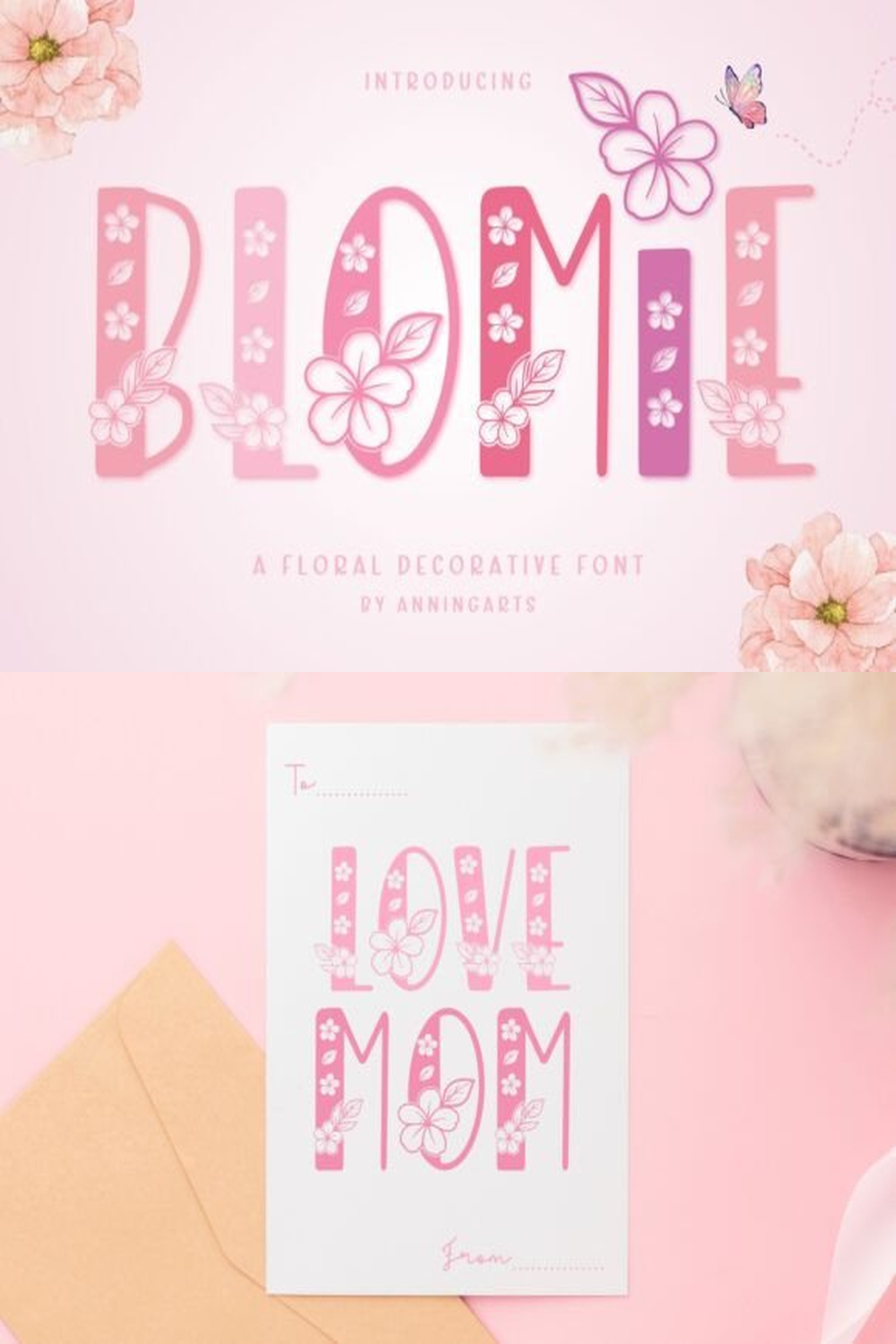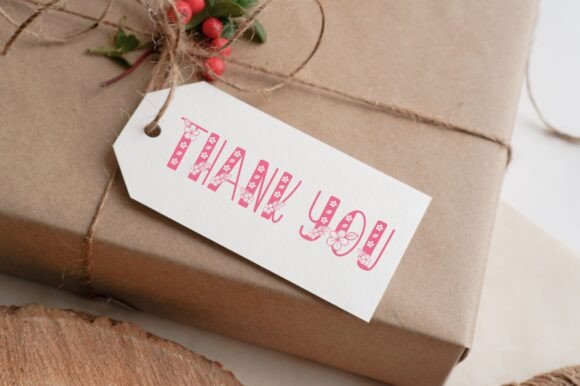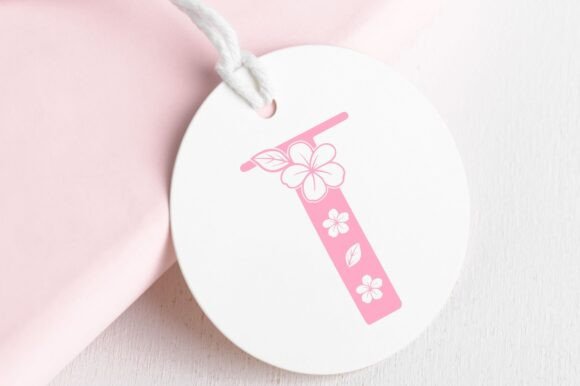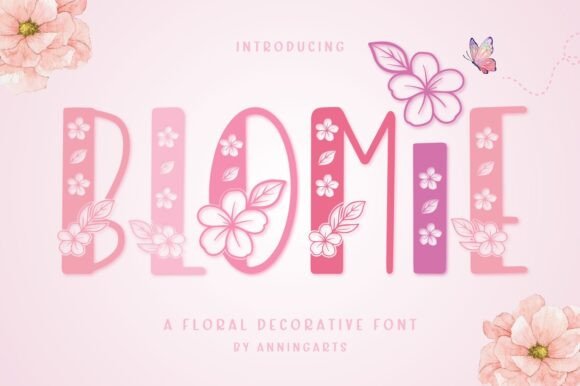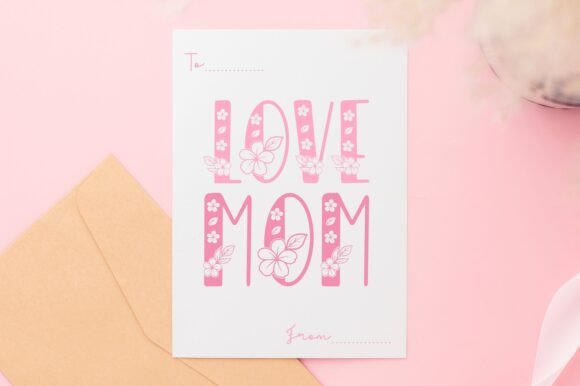
Blomie Font: A Cute Floral Display Font for Wedding & Social Media Design
About the Blomie Font
Discover the charm of Blomie Font. This font is a perfect blend of modern aesthetics and classic appeal. Blomie is a playful floral font with lovely hand-drawn elements that make every letter feel like spring. Designed with hand-drawn flowers and soft curves, it’s perfect for creating romantic cards, nursery art, social media, wedding stationery, and more.